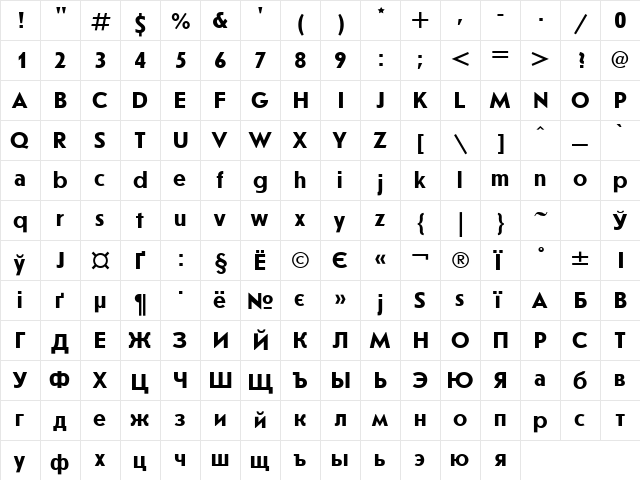
JournalSans Bold Cyrillic
Design Context for JournalSans Typeface
JournalSans is a composed and adaptable typeface that performs quietly and consistently across a wide range of design contexts. Its bold stroke weight gives it real presence on the page.